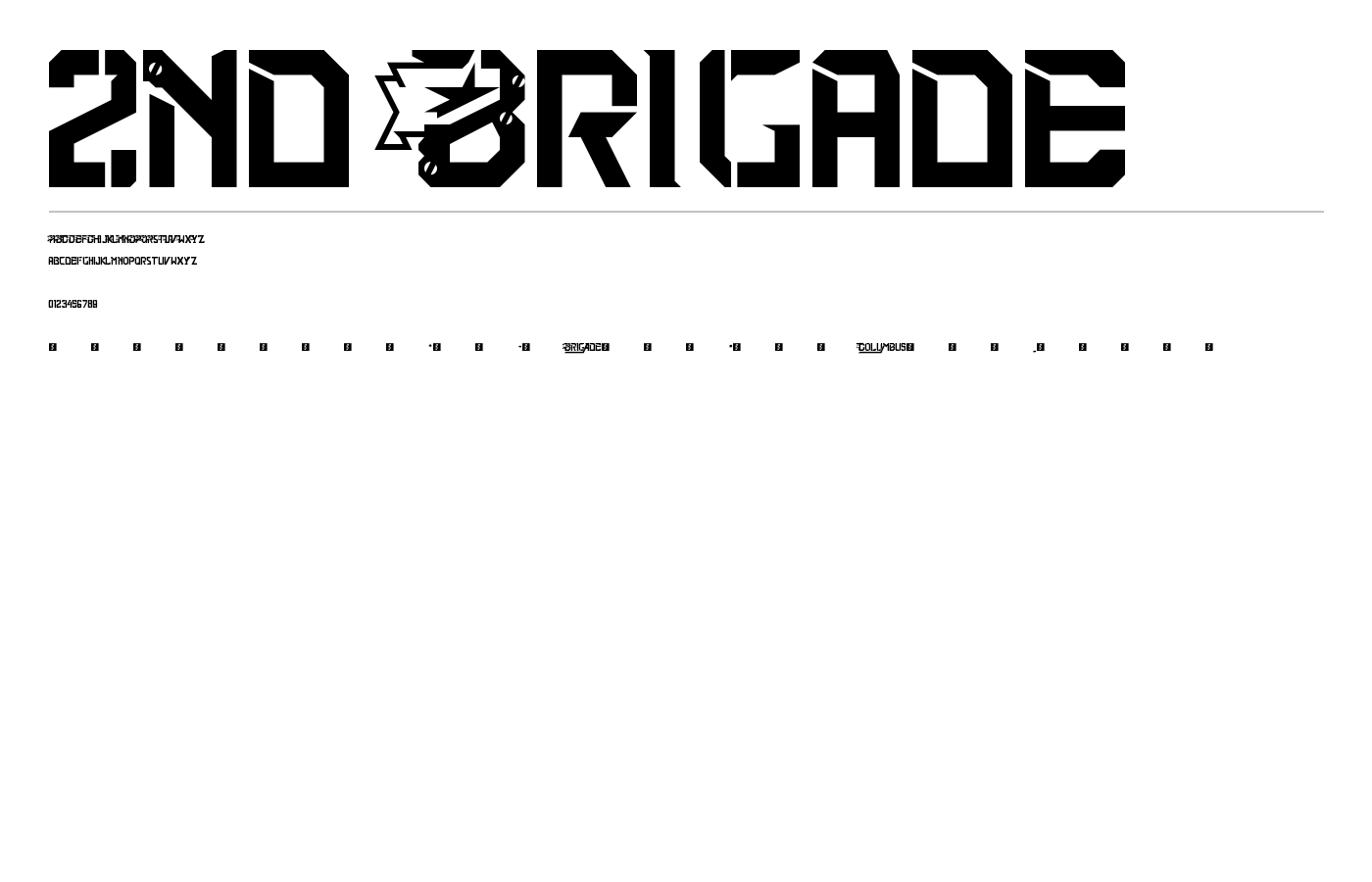
2nd Brigade is a bold, condensed sans serif font with a strong geometric and angular design, giving it a modern yet industrial military feel. Its high contrast between sharp edges and solid strokes, combined with unique letter shapes, makes it ideal for striking headlines, logos, and branding that demand a powerful and authoritative presence. This font works well in contexts where clarity and toughness are essential, such as posters, sports teams, or tech-inspired designs.
2nd Brigade Font
About 2nd Brigade Font